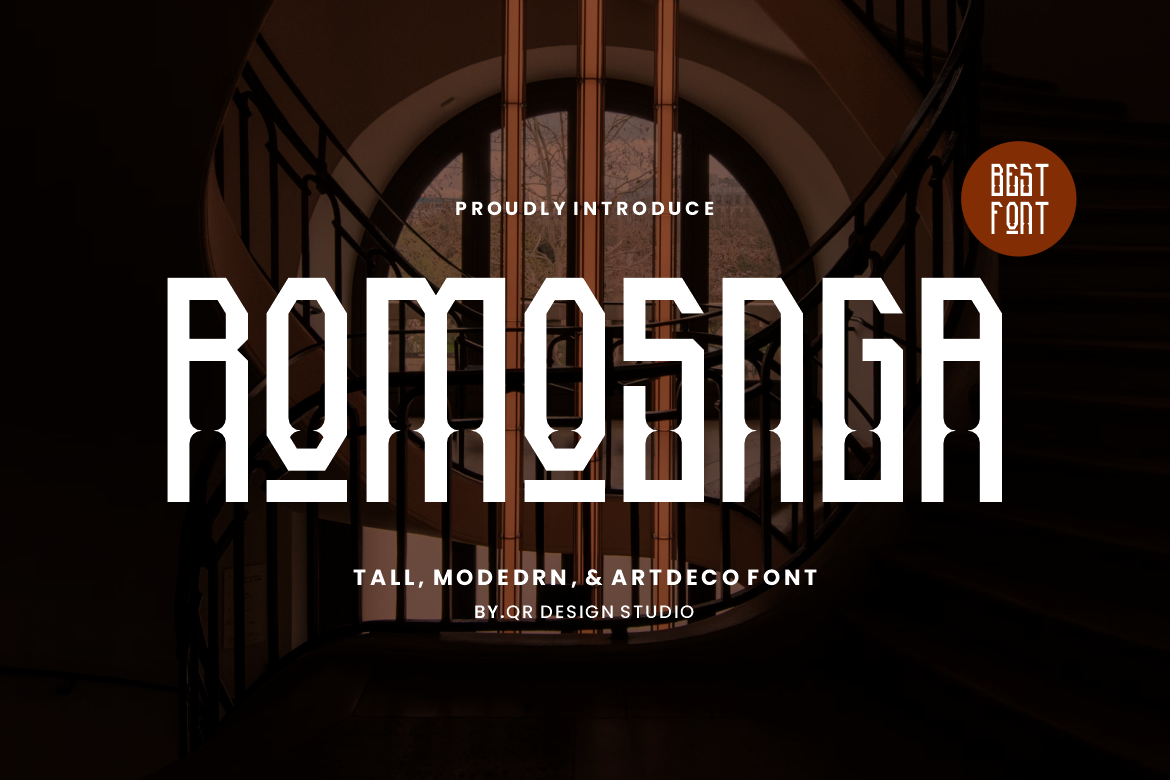
Romosnga - Tall & Medieval Font
Romosnga Font is a modern and authentic display font. The font is suitable for any branding project like poster, logo, sport, and many more. Outstanding in a wide range of contexts.